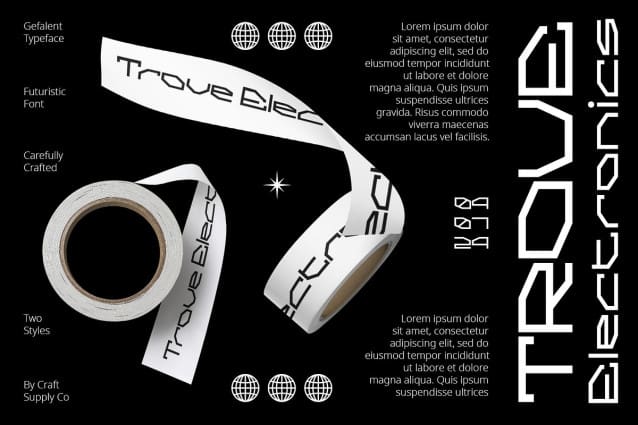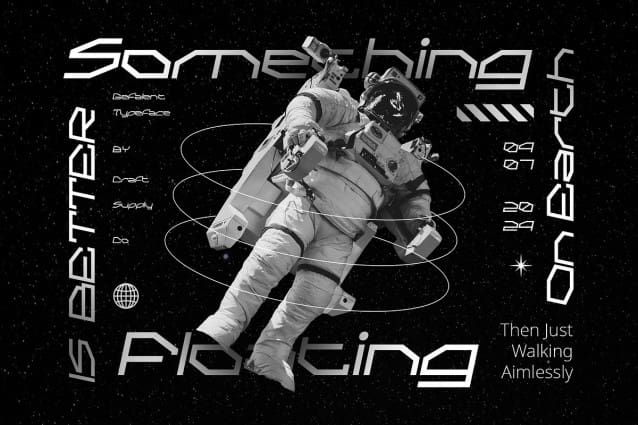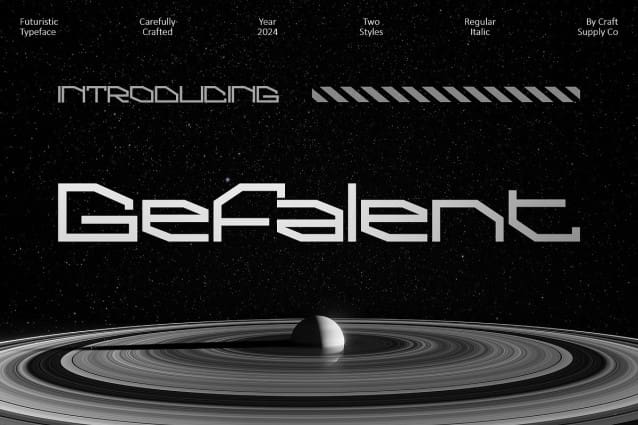
Gefalent Futuristic Font
Gefalent Futuristic Font: Futuristic Geometric Display. Sleek and Geometric Gefalent presents a sleek and minimalist geometric design, characterized by monoline strokes. Its futuristic appearance draws inspiration from sci-fi and space exploration, evoking a sense of innovation and modernity.
Minimalist Monoline Elegance With its monoline structure, This font exudes an air of simplicity and elegance display. Each character is meticulously crafted to maintain consistency and clarity, enhancing readability in various design contexts.
Inspired by Sci-Fi and Space This font is inspired by the aesthetics of science fiction and space exploration. Its geometric shapes and clean lines reflect the sleekness and technological advancements associated with futuristic themes, making it ideal for projects related to technology, innovation, and exploration.
Perfect for Modern Design Tailored for modern design needs, This font shines in digital interfaces, branding, and editorial layouts. Its geometric precision and futuristic vibe make it a versatile choice for conveying a contemporary aesthetic across various platforms.
Embrace the Future This font offers a captivating blend of geometric precision and futuristic allure, making it an excellent choice for designers seeking to infuse their projects with a sense of innovation and modernity. With its sleek monoline design and sci-fi inspiration, This font invites you to embrace the future of design.